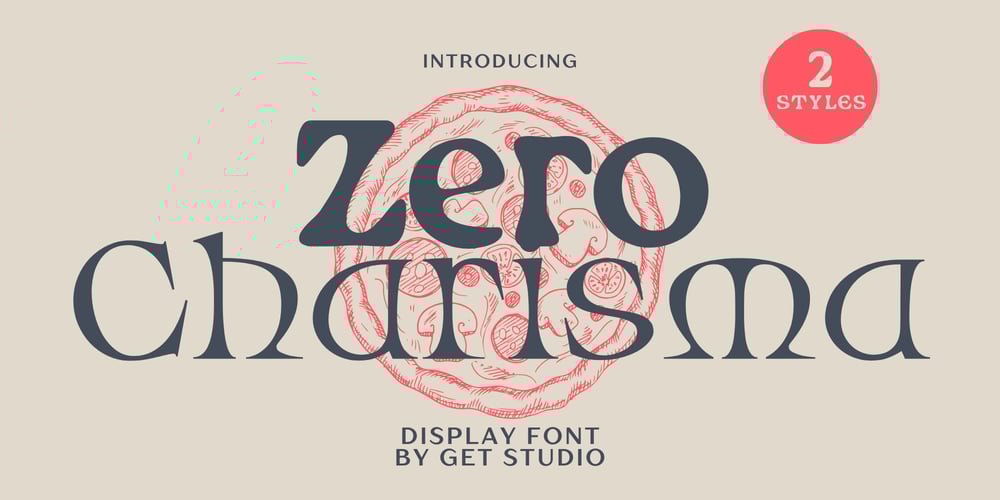
Zero Charisma Font Family was designed by Hermansyah and published by Get Studio. Zero Charisma contains 2 styles and family package options. Zero Charisma is a quirky display font with a psychedelic taste. Helps to create layout modern and retro design projects.